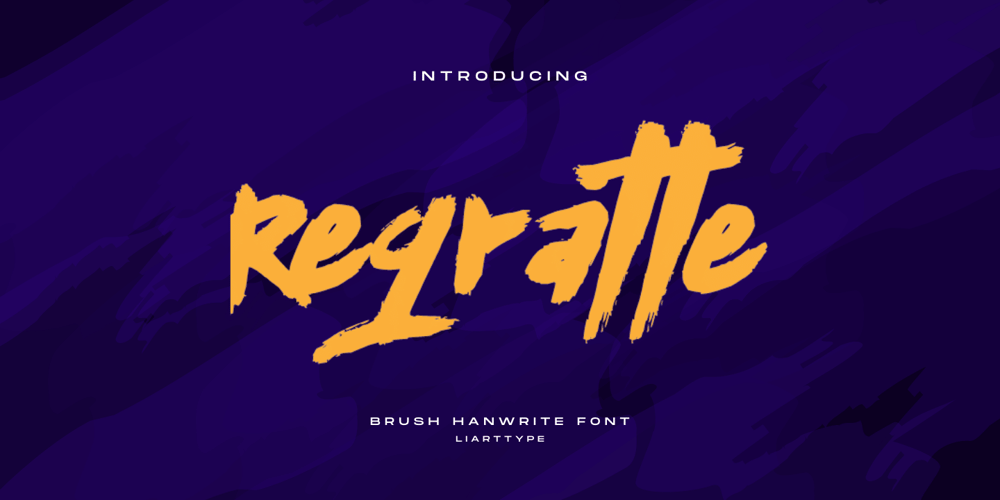
Regratte Font Family was designed by Ali Sifak Muftari and published by Liartgraphic. Regratte contains 1 styles and family package options. Meet our newest product, we call this product Regratte font. Regratte font are cute typeface fontWhit a uniqe touch and assertive,Regratte font is very nice to use on fashion magazine, logos, ,and photography, landing page, fliyer, What’s includes- mutilngual support- alternate- ligatureThank you, salutationsAli Sifak Muftari